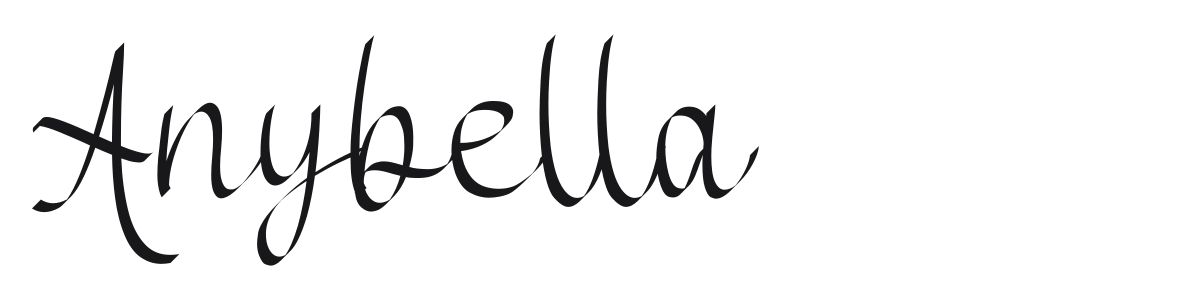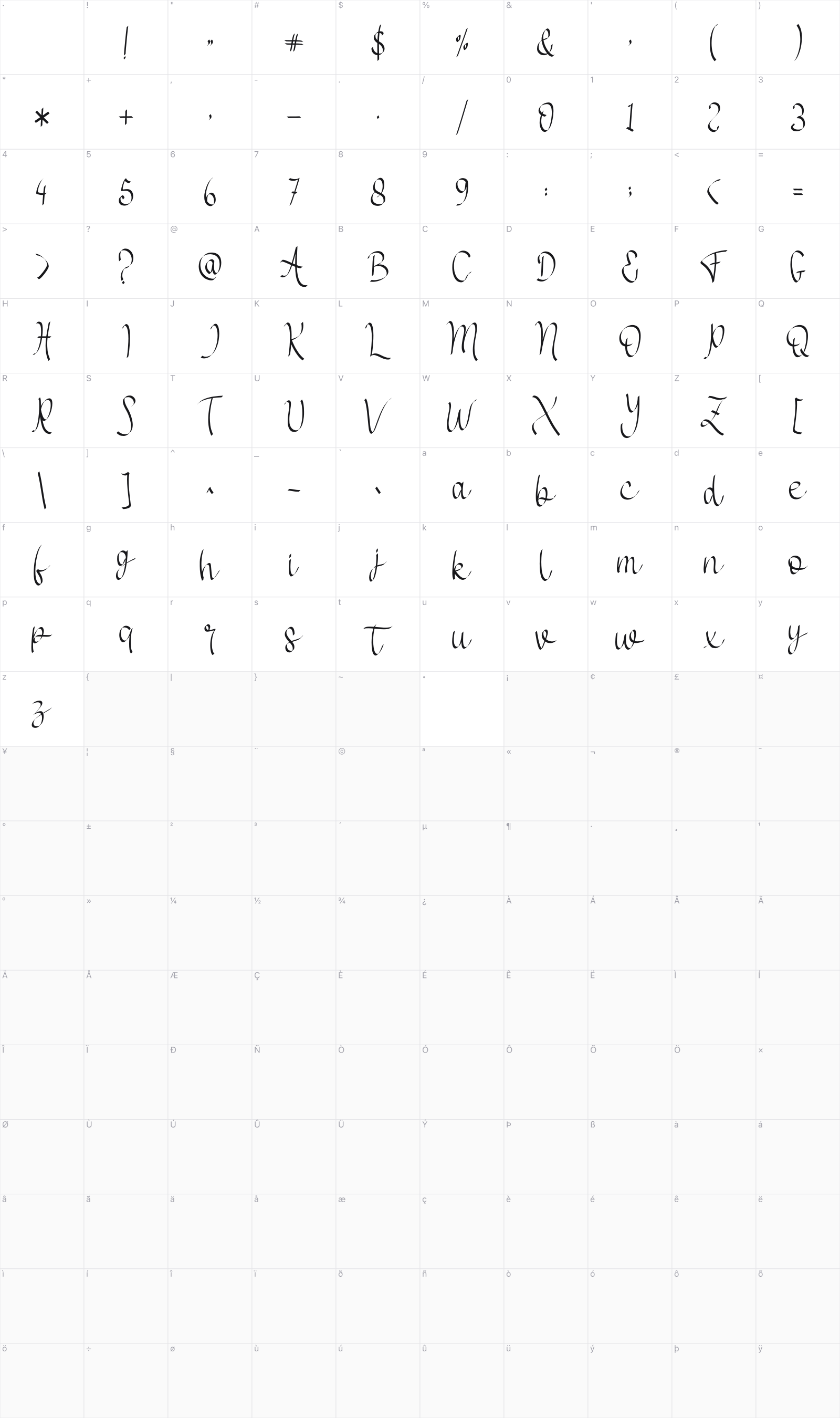
Anybella
by Letterafa Studio
Anybella is a casual calligraphic script with tall looping ascenders and fluid connecting strokes that give it a lively, hand-penned feel. The high contrast between thick downstrokes and thin hairlines adds a touch of elegance without stiffening the natural rhythm. It suits wedding stationery, product packaging, and any branding that needs warmth and personality.